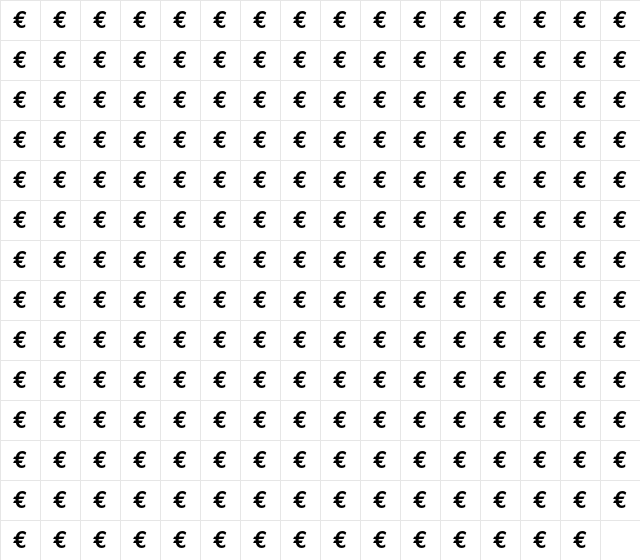
Euro Mono Bold
Design Context for Euro Mono Typeface
Euro Mono brings the precise, column-aligned rhythm of monospaced typography to designs that value technical clarity and systematic order. The heavy weight commands attention and anchors typographic hierarchies.
A natural fit for code editors, technical documentation, developer-focused branding, and terminal-inspired UI.
Pro Tip: Pair Euro Mono with a proportional sans for UI contexts where code-style labels and regular body copy need to coexist.